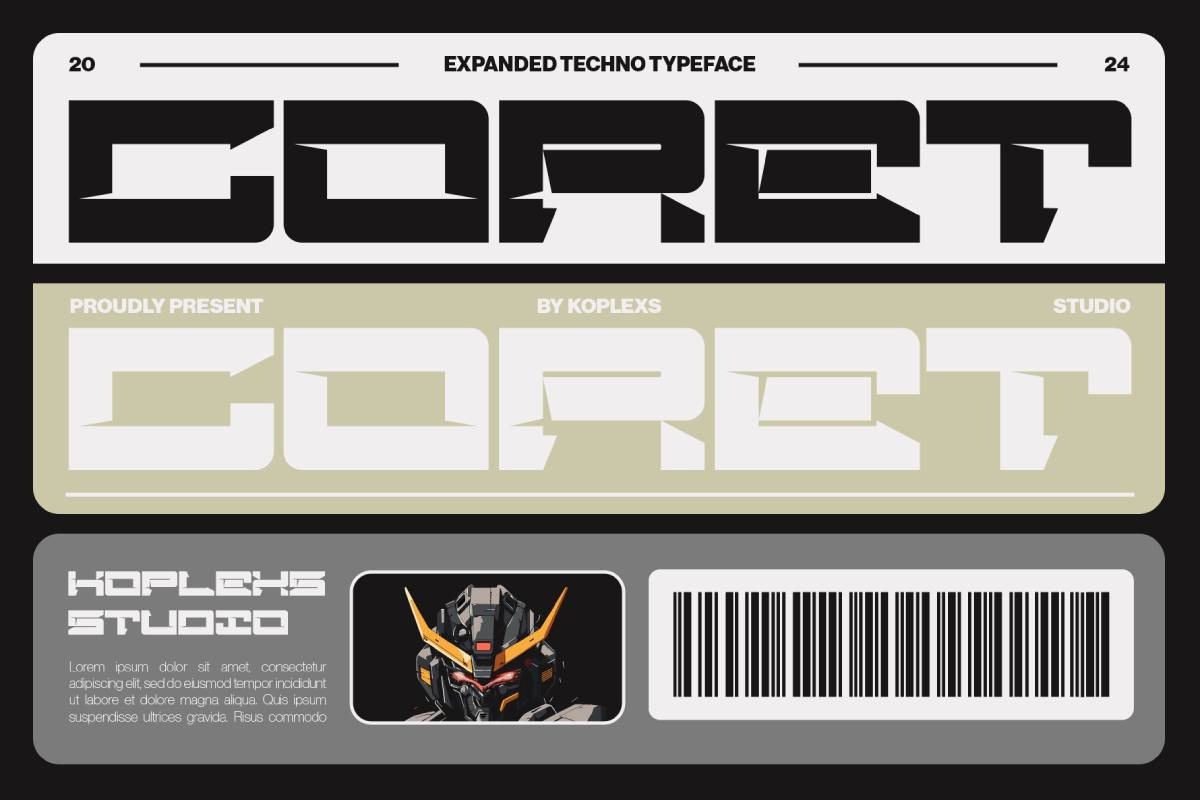
Coret Font
Coret Font is a bold futuristic display typeface created by Koplexs Studio, designed to capture the spirit of modern technology and cyberpunk aesthetics. With sharp geometric forms and precise edges, this tech font brings a sleek, high-tech vibe to any project. It’s ideal for those who love sci-fi design, gaming culture, and futuristic visual storytelling, delivering the perfect balance between innovation and readability.
Engineered for versatility, Coret Font fits seamlessly into a wide range of creative work. From game titles, logos, and app interfaces to headlines, branding, and digital art, this cyberpunk sans serif font adapts beautifully across media. Its expanded structure and bold weight make it a top choice for modern tech brands seeking strong visual impact. Coret Font is available for instant digital download in multiple licenses to suit personal, commercial, and corporate needs.